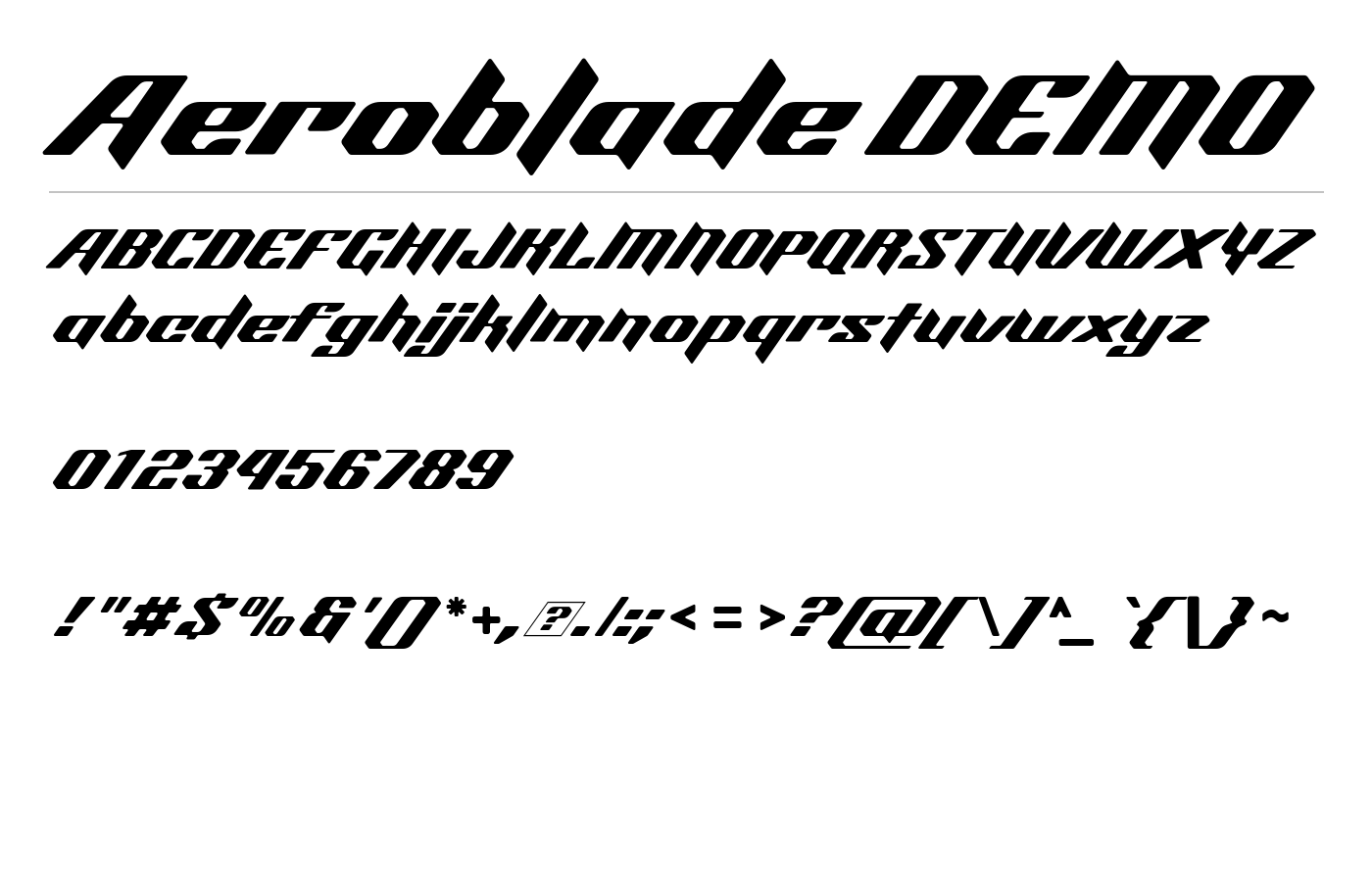
Aeroblade DEMO is a bold, condensed sans serif font with a strong futuristic and sporty vibe. Its sharp, angular letterforms slant forward aggressively, giving a sense of speed and motion, perfect for dynamic branding, sports logos, or high-energy editorial headlines. This typeface works best where you want to convey power, modernity, and excitement with a clean, impactful look.
Aeroblade DEMO Font
About Aeroblade DEMO Font
| Font family | Aeroblade DEMO Font |
| Designer | Ashran Anthonie Van Hayu |
| Font subfamily | ExtraBold, Italic |